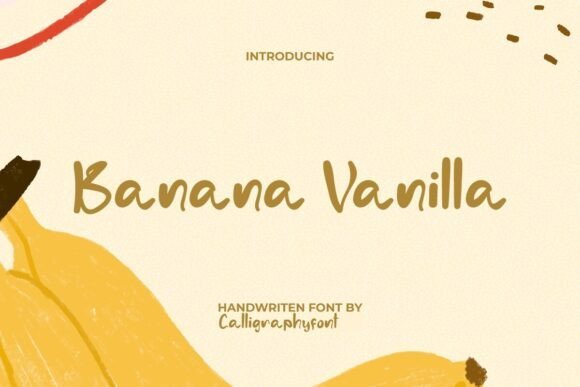
The Perfect Blend of Creativity and Elegance: Introducing Banana Vanilla Font
Have you ever been in the middle of a design project, staring at a blank page, trying to come up with the perfect font to convey the tone of your message? I’m sure many of us have been there. But what if I told you that there’s a font that can bring a smile to your audience’s face and add a touch of sophistication to your design? Enter Banana Vanilla Font, a unique handwritten font that’s perfect for adding a personal touch to your designs.
This smooth and elegant font is designed to adapt to various design needs, making it an essential tool for designers. Its organic and flowing characters make it perfect for creating eye-catching headlines, branding logos, and even wedding invitations. With its sweet brush options, Banana Vanilla Font is sure to add a touch of whimsy and elegance to any design project, making it a valuable addition to any designer’s toolkit.
Banana Vanilla Font Key Features
- Font Family: Banana Vanilla Font offers a unique blend of casual and elegant styles, making it suitable for a wide range of applications.
- Character Set: Banana Vanilla Font includes a comprehensive character set, covering Latin, Cyrillic, and Greek alphabets, as well as various punctuation and symbol marks.
- Unique Characteristics: Banana Vanilla Font features a distinctive banana-shaped curve, adding a touch of whimsy and playfulness to any design.
Designer Review: Banana Vanilla Font
Overall, I’m impressed with the Banana Vanilla Font’s unique personality and versatility. ✨ Its playful, cursive design makes it perfect for branding and packaging projects where you want to convey a sense of fun and approachability. The font’s rounded edges and smooth lines create a welcoming atmosphere that’s sure to put customers at ease.
- ✨ Unique personality and style that sets it apart from more common fonts
- ✨ Versatile design that can be used for a wide range of projects, from branding to packaging
- ✨ Smooth lines and rounded edges create a welcoming atmosphere
- ⚠️ Limited font sizes: The font may become too cursive or illegible at larger sizes
- ⚠️ Not suitable for formal or serious projects: The font’s playful design may not be suitable for projects that require a more professional tone
- ⚠️ May require additional styling: Depending on the project, you may need to add additional styling to make the font more readable at smaller sizes
In conclusion, the Banana Vanilla Font is a great choice for projects that require a playful and approachable design. While it may have some limitations, its unique personality and versatility make it a valuable addition to any designer’s toolkit.
Practical Application Guide: Banana Vanilla Font
To get the most out of the Banana Vanilla Font, try pairing it with bold or italic text for emphasis. Experiment with different font sizes and styles to create visual interest.
The Banana Vanilla Font is ideal for use in food and beverage branding, as well as for creating playful and whimsical designs. It’s also great for use in children’s products or educational materials.
For optimal readability, we recommend using a font size between 12pt and 18pt, with a line height of at least 1.2 to 1.5 times the font size. This will provide a comfortable reading experience for your audience.
Q: Is the Banana Vanilla Font optimized for digital use?
Yes, the Banana Vanilla Font is optimized for digital use, including web, mobile, and desktop applications. It has been carefully crafted to ensure clear and legible rendering across various screen resolutions and devices.